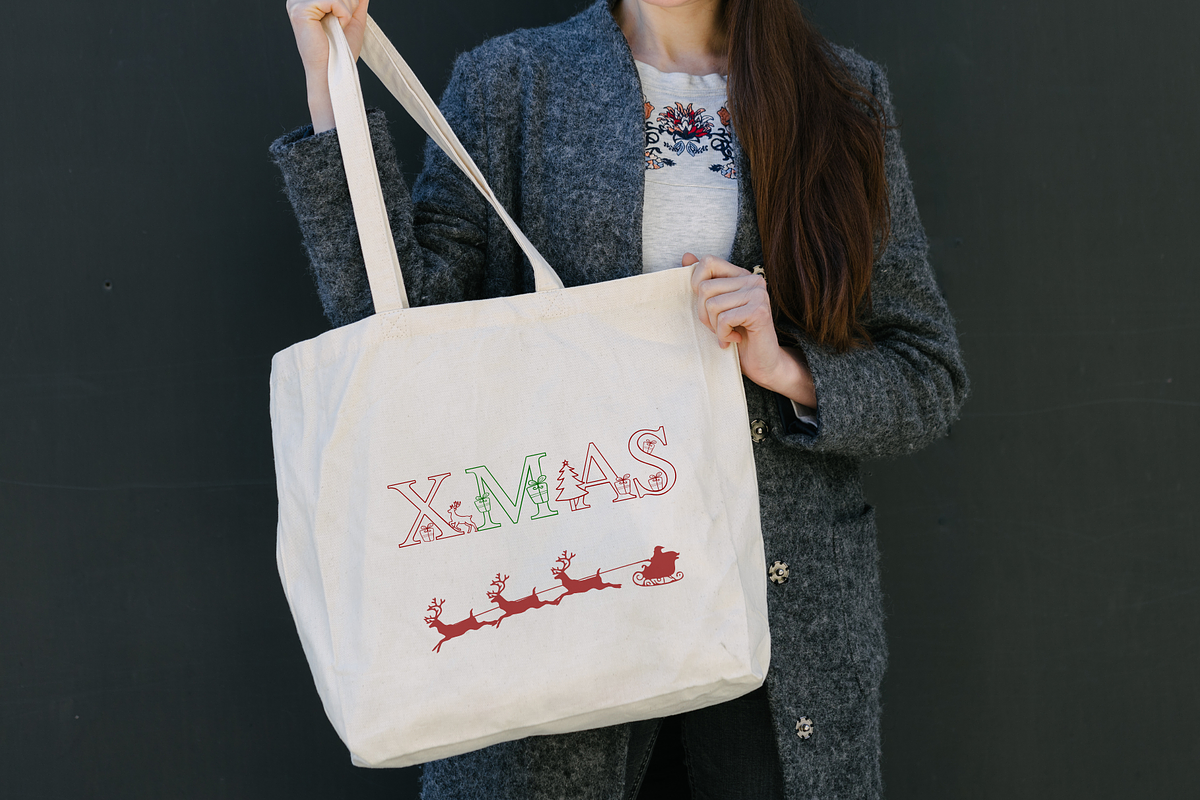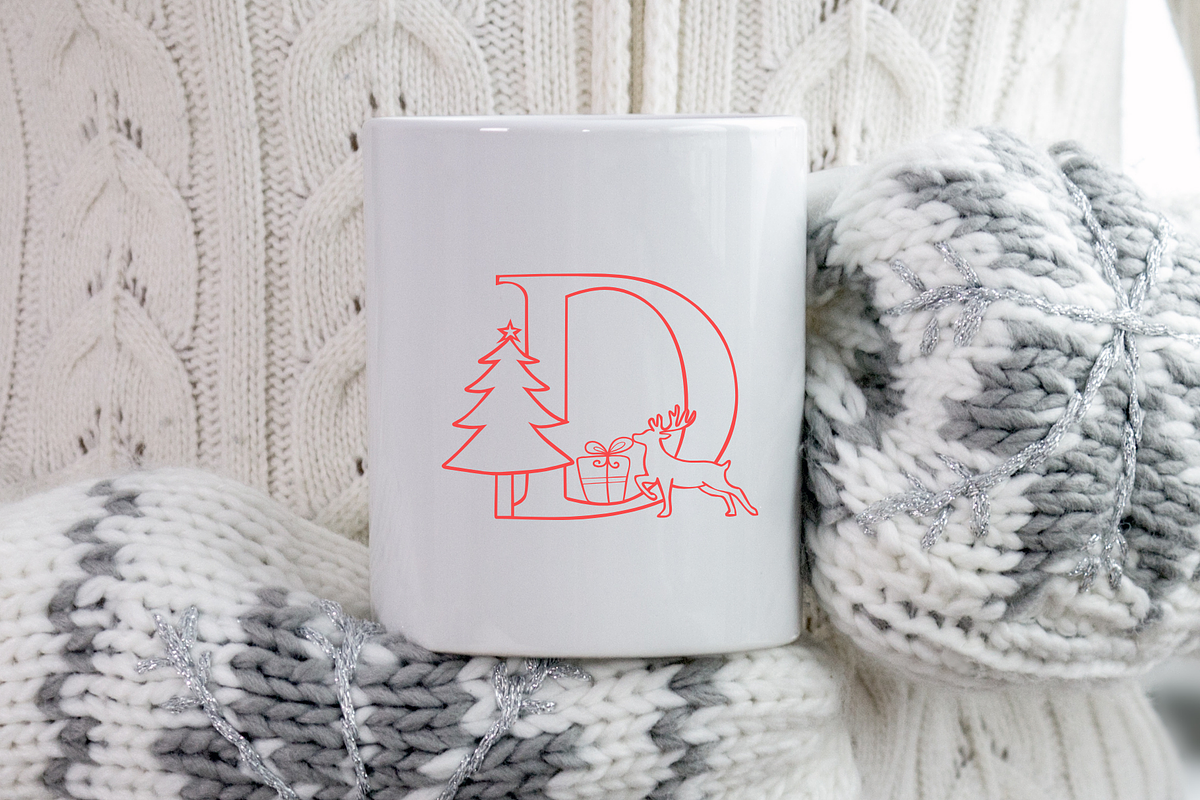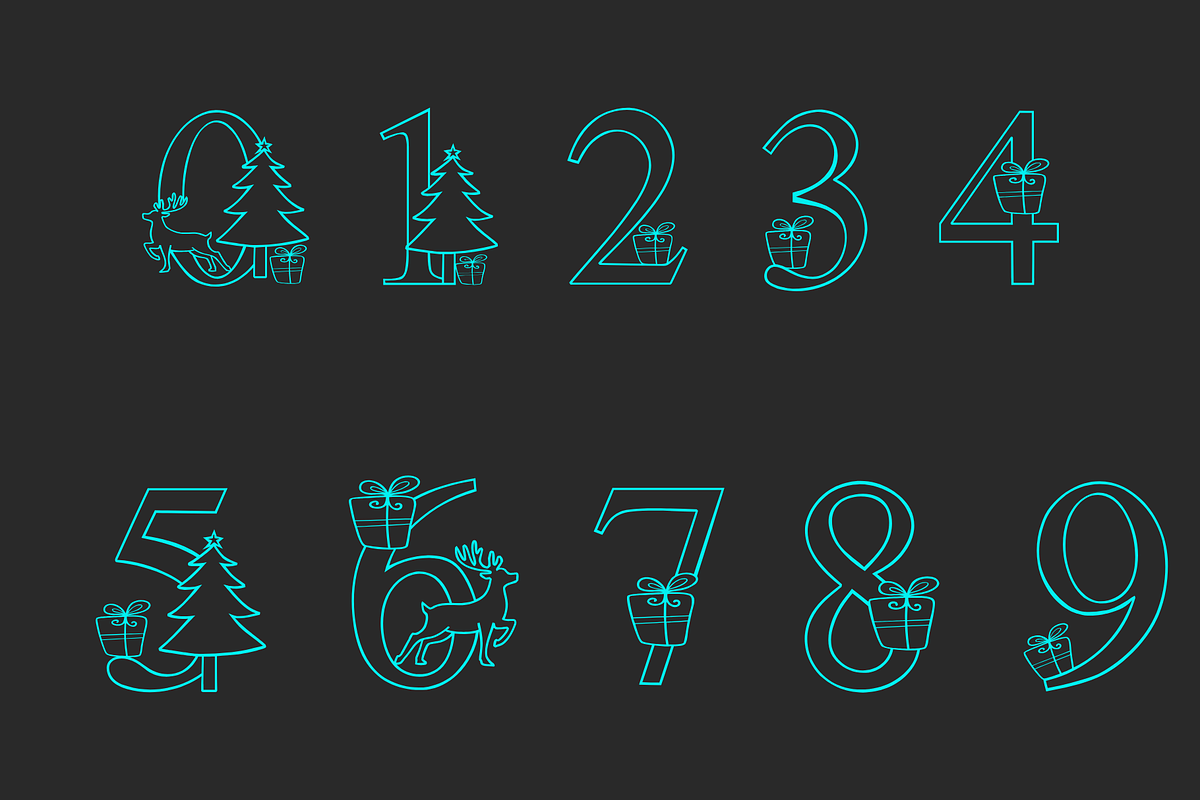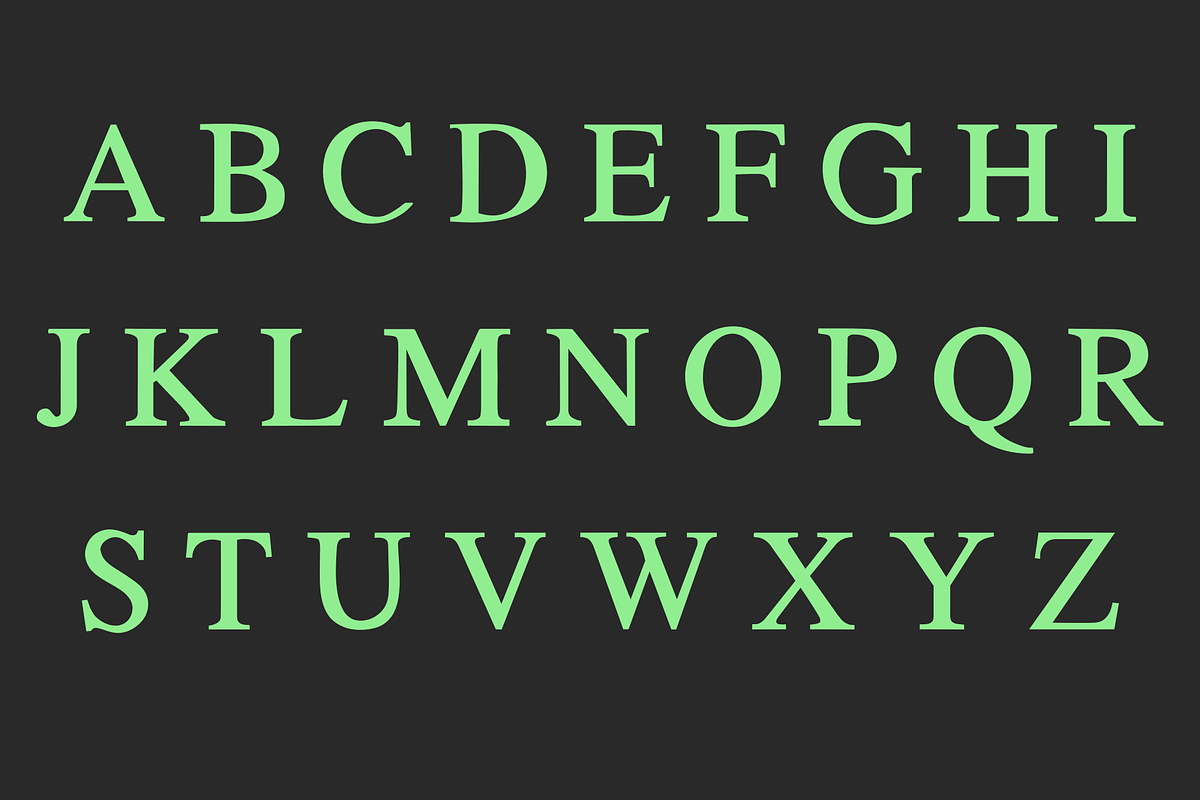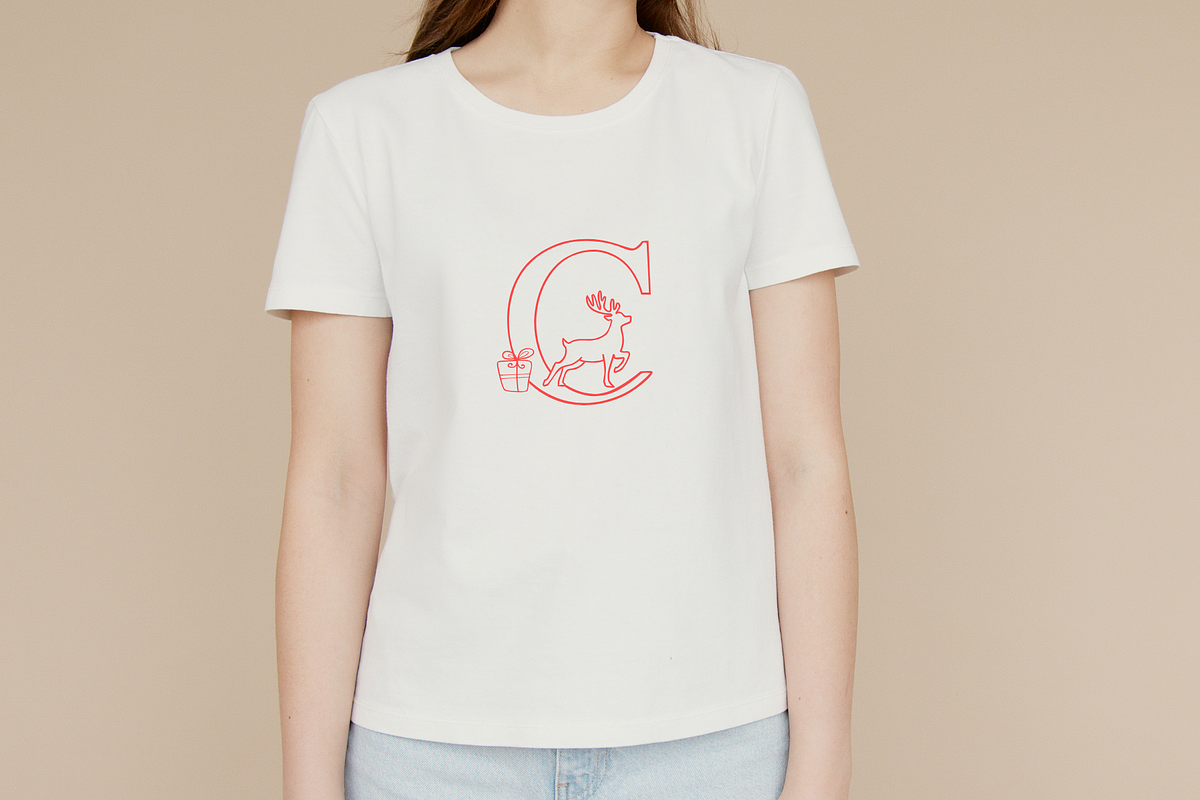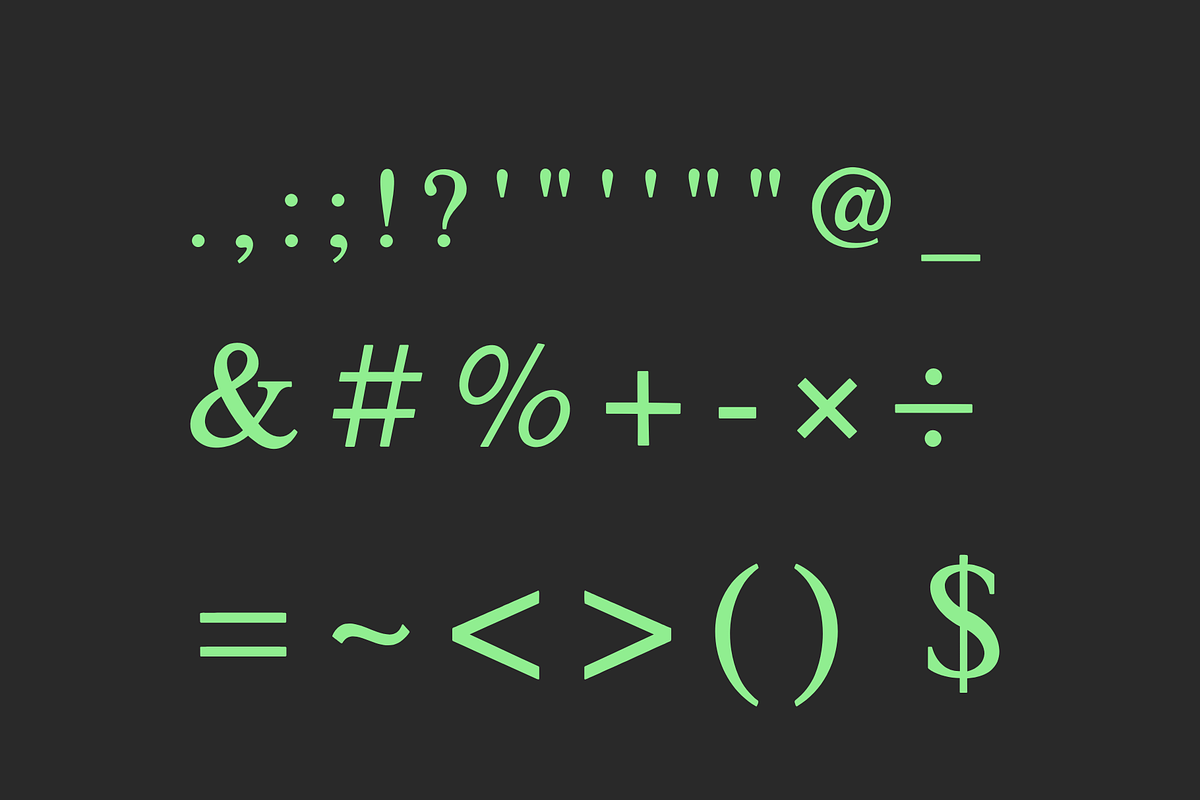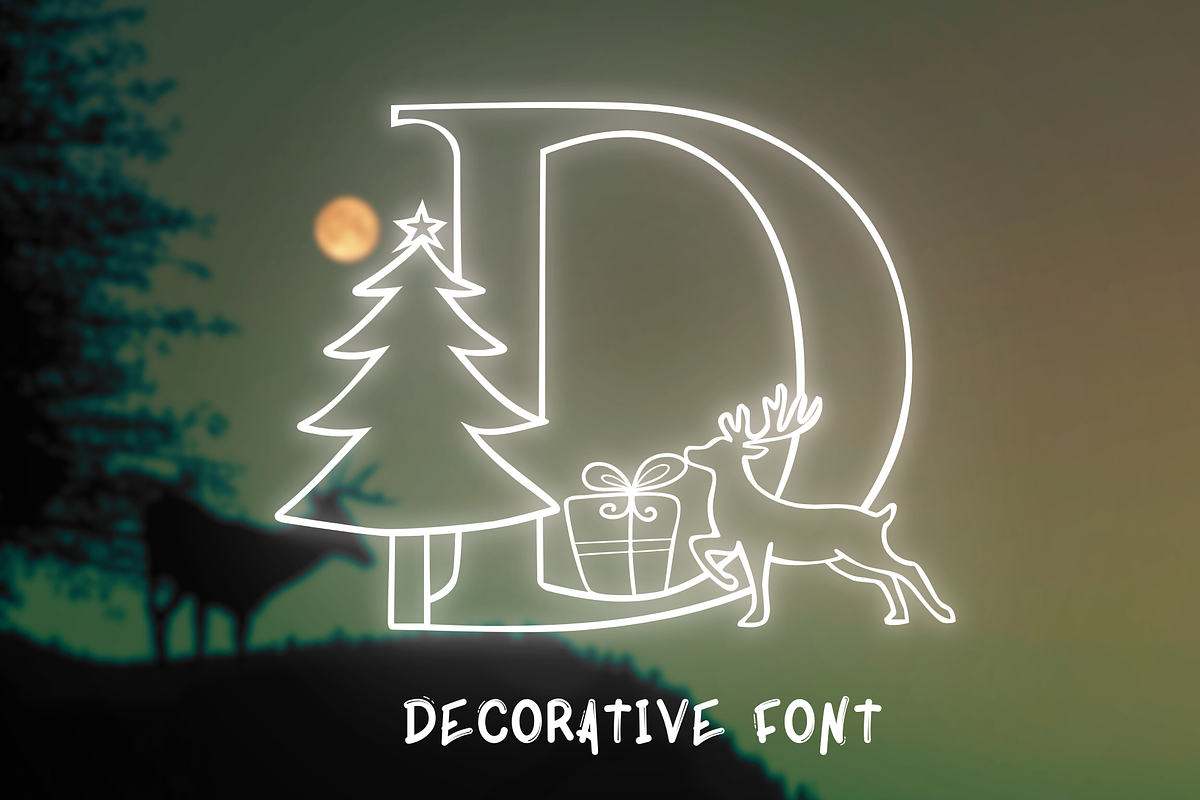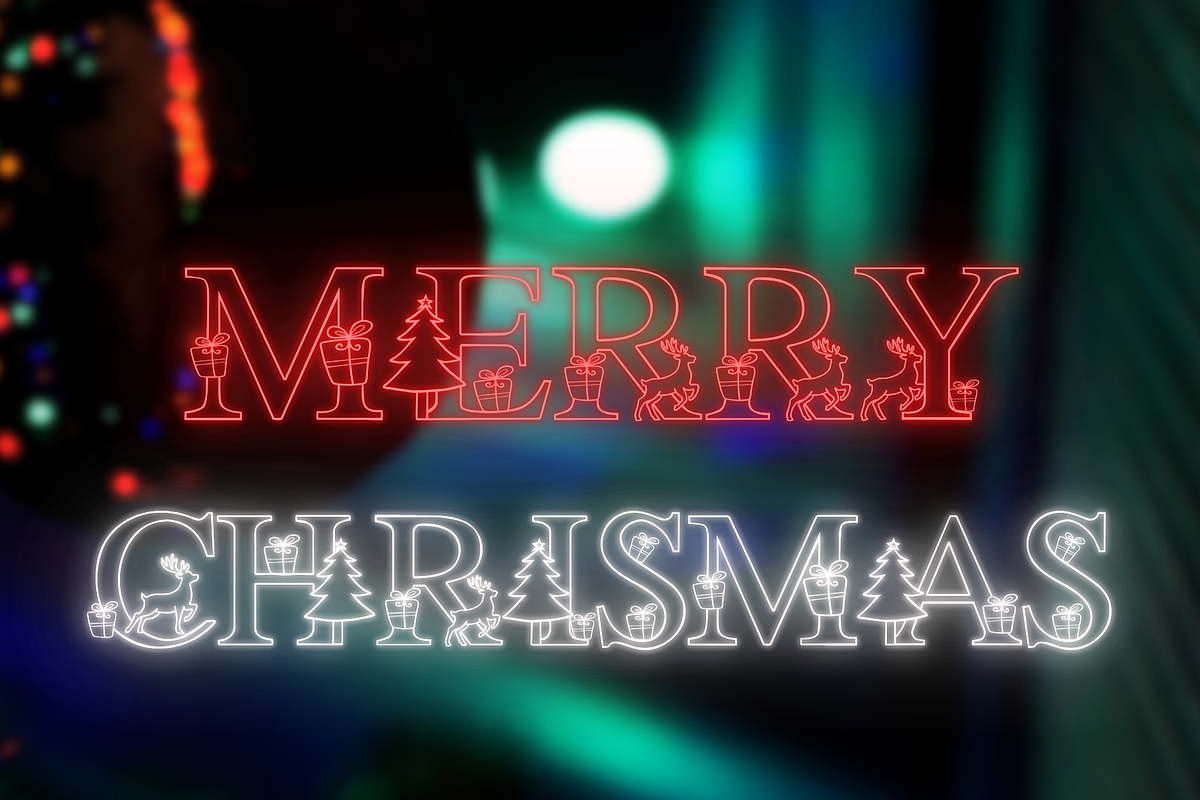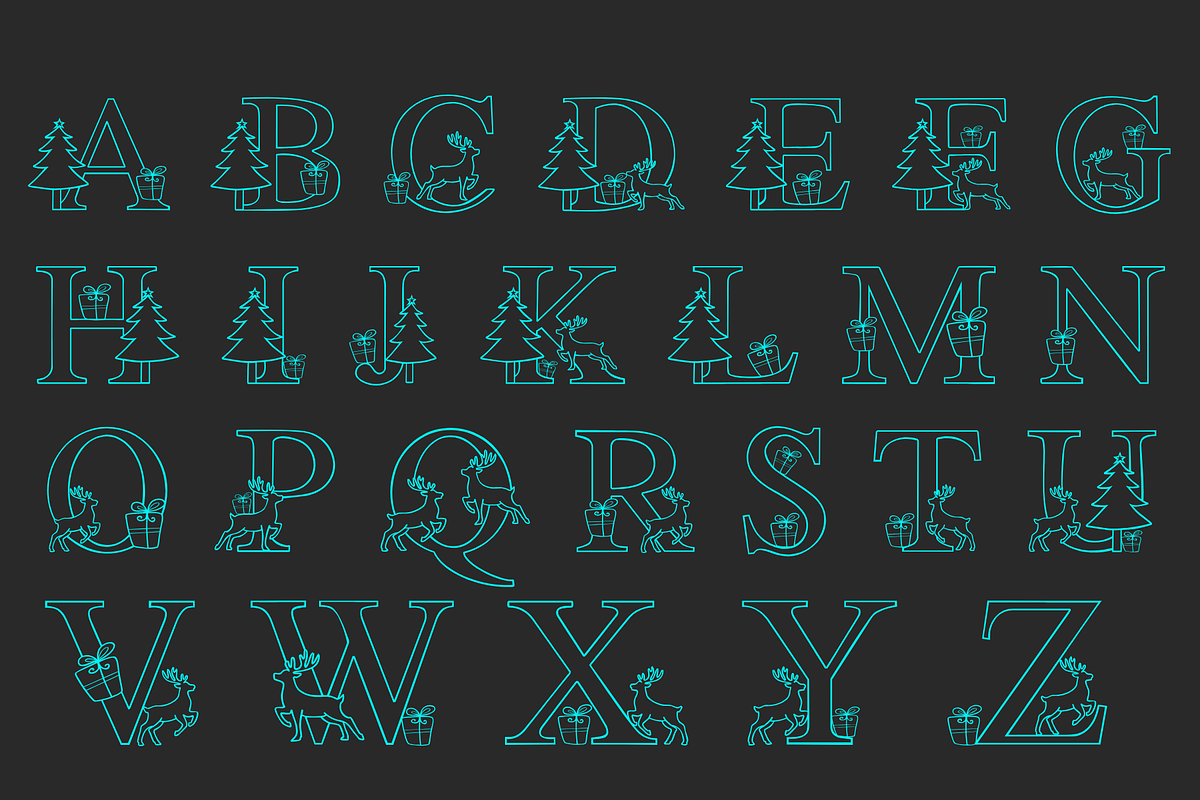
Chrismas deer
Chrismas deer is a symbols font with theme with a sketch style. This font can enhance your creative projects such as wedding invitations, DIY, crafts, decorations, logos, and many other creative ideas.